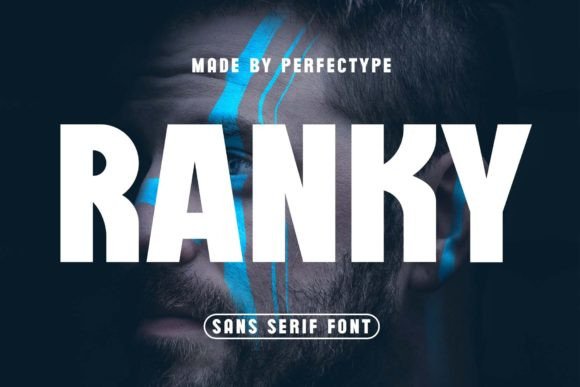
Welcome to the world of Ranky Font, the sans serif font family that will revolutionize your design journey. A creation of Perfectype, Ranky Font embodies the essence of modern sophistication and unique elegance. Its mesmerizing shape and natural writing style will breathe life into your creative projects, transforming them into masterpieces.
Enter the realm of endless possibilities with Ranky Font, where your imagination knows no bounds. Craft stunning typographic designs in the blink of an eye, from captivating branding and sleek web designs to eye-catching editorials, prints, and crafts. Unleash your creativity and let Ranky Font guide you towards extraordinary outcomes.
Indulge in the versatility of Ranky Font, a font family that effortlessly adapts to a myriad of projects. Create logotypes that command attention, wedding invitations that exude romance, and cards that overflow with heartfelt emotions. Design labels and packaging that elevate your products, or simply spell out names with a touch of personal charm. Ranky Font is your ultimate companion, ready to bring your ideas to life.
With Ranky Font, experience the joy of seamless creativity. Its user-friendly interface and intuitive design make it a breeze to navigate, allowing you to focus on what truly matters: expressing your artistic vision. Let the font's natural flow guide your designs, creating a harmonious balance between form and function.
Unlock the full potential of Ranky Font and witness the transformation of your creative ideas into tangible works of art. Elevate your designs to new heights, captivate audiences with your unique style, and leave a lasting impression wherever your creations go. Embrace the power of Ranky Font and embark on a journey of limitless creativity.